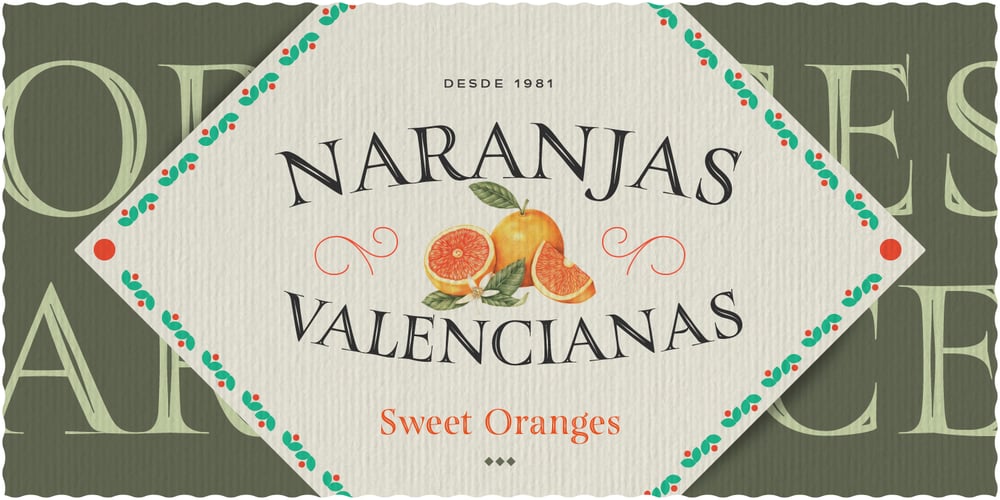
Turquoise Inline Font Family was designed by Giuseppe Salerno, Paco González and published by Resistenza. Turquoise Inline contains 2 styles and family package options. Turquoise Inline is a new version of our bestseller Turquoise This version of roman capitals is more focused on display use, with the details of an inline roman type. This font can be used, for ads, labels, wine labels, logo and all kind of display uses. Open Type features needs to be activated for all the ligatures and alternates. Enjoy it! We recommend to combine Turquoise Inline with Nautica Sottile & Auster